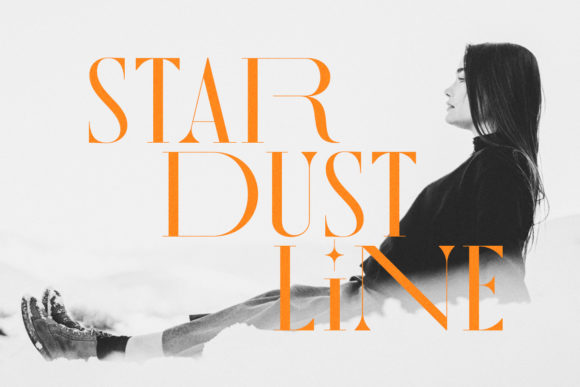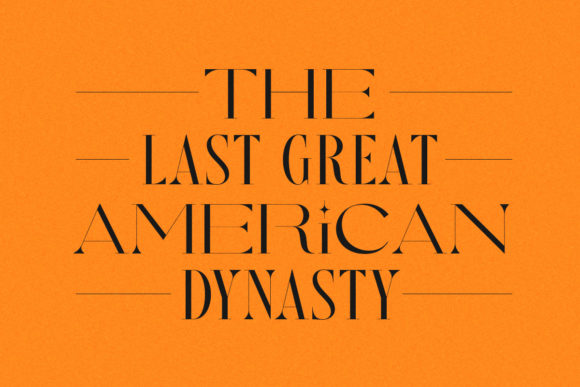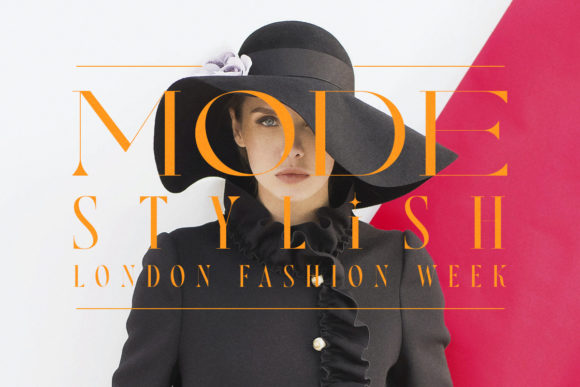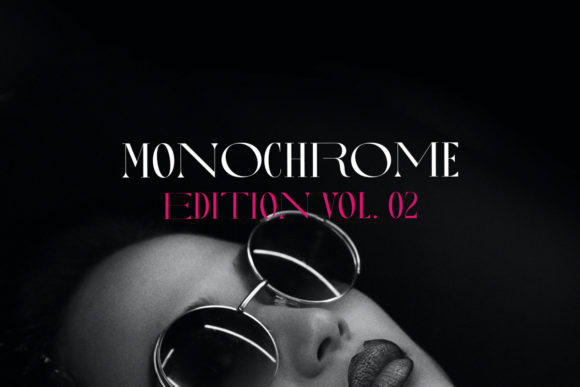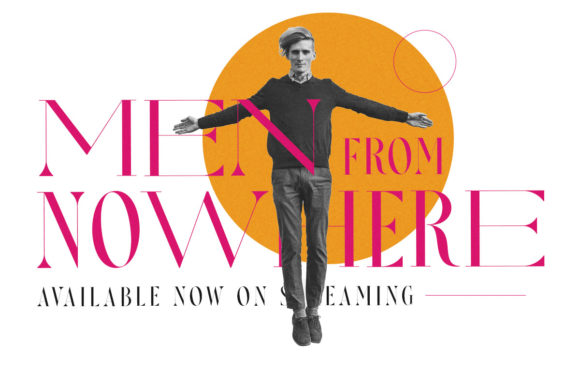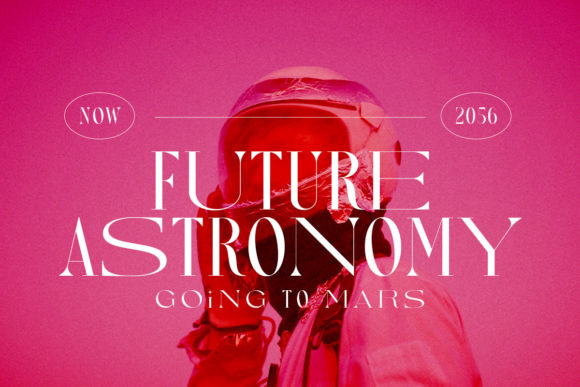
Introduction to Nefarious Font
Have you ever stared at a blank page, struggling to find the perfect design element to bring your creative project to life? For designers, this moment is all too familiar. But what if I told you that there’s a secret ingredient that can elevate your designs to new heights? Enter the Nefarious Font, a delicate and elegant serif font that will leave you and your audience breathless.
As a valuable addition to any design resource, the Nefarious Font offers a level of sophistication and refinement that’s hard to find in other fonts. With its high quality design and transparent background, it’s the perfect choice for crafting unique and eye-catching cards, branding, labels, and more. And the best part? It’s available for free download, making it an accessible and exciting resource for designers of all levels.
Nefarious Font
- Unique, high-quality design resource ideal for creative projects
- Perfect for use in logos, branding materials, and other design elements that require a touch of sophistication
Honest Review: Nefarious Font
I recently stumbled upon the Nefarious Font, a free design resource that has left me with mixed feelings. On one hand, the font is a great addition to any creative project that requires a bold, edgy look. ✨ The font’s high quality is evident, with clear and well-defined characters that are perfect for use on a transparent background.
Here are some of the things that I think work well about the Nefarious Font:
- Unique and bold character design
- Perfect for use in creative projects that require an edgy look
- High quality characters that are clear and well-defined
However, there are also some limitations to consider:
- Only available in a single weight, which may limit its versatility
- No italic or bold variations available
- Not ideal for use in body text, due to its bold and eye-catching design
Overall, I think the Nefarious Font is a great addition to any designer’s toolkit, but it may not be suitable for all projects. With its unique design and high quality characters, it’s perfect for use in creative projects where you want to make a statement. Just be aware of its limitations and use it wisely.
Tips for Getting the Most Out of Nefarious Font
Use the Nefarious Font in conjunction with other design elements, such as graphics and images, to create a visually striking design. Experiment with different font sizes and colors to achieve the desired effect.
The Nefarious Font is ideal for use in creative projects, such as:
- Graphic design and branding
- Print design and publishing
- Marketing materials and advertising